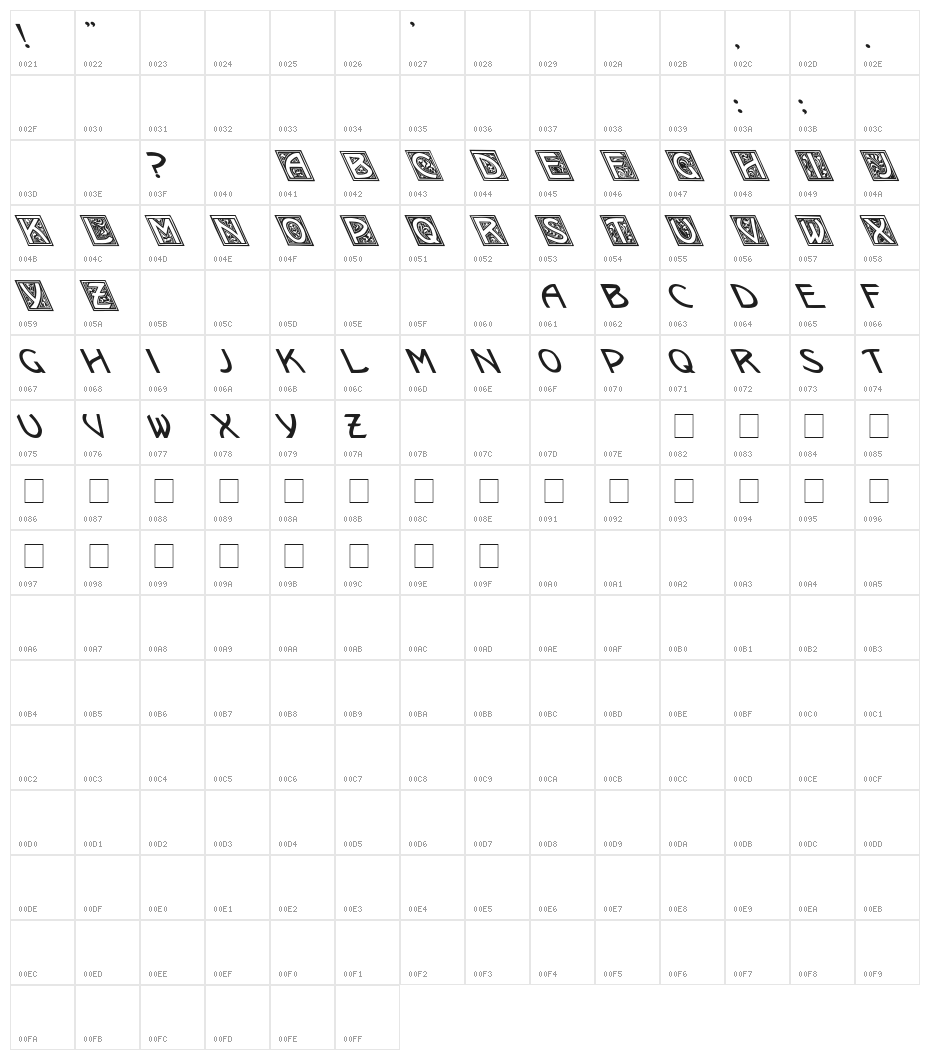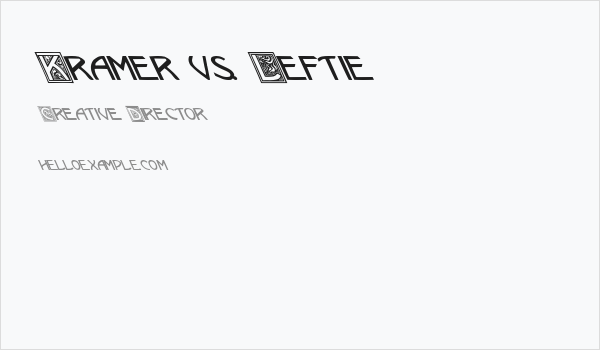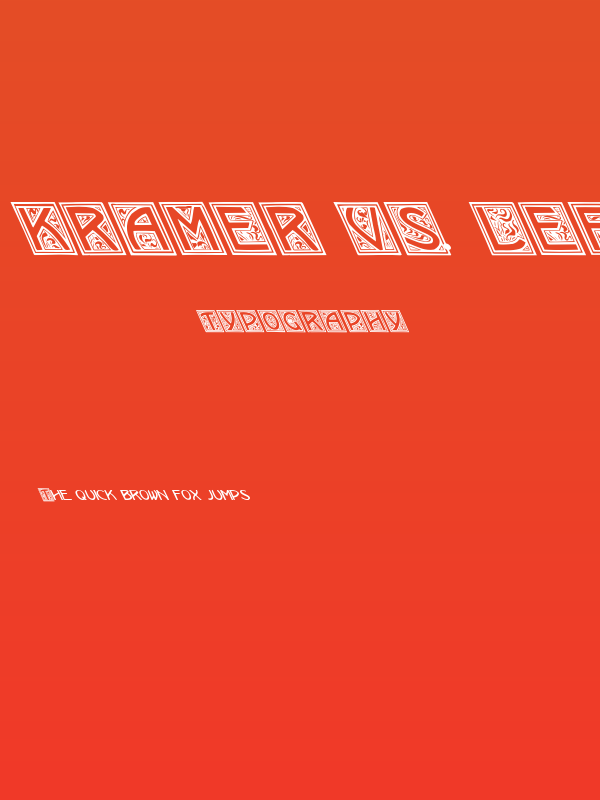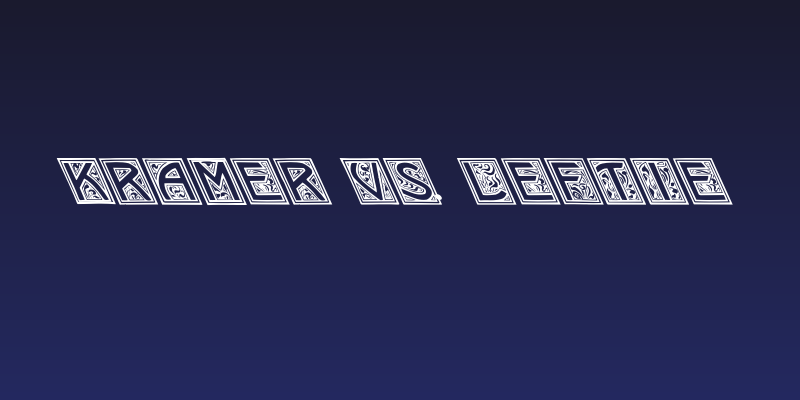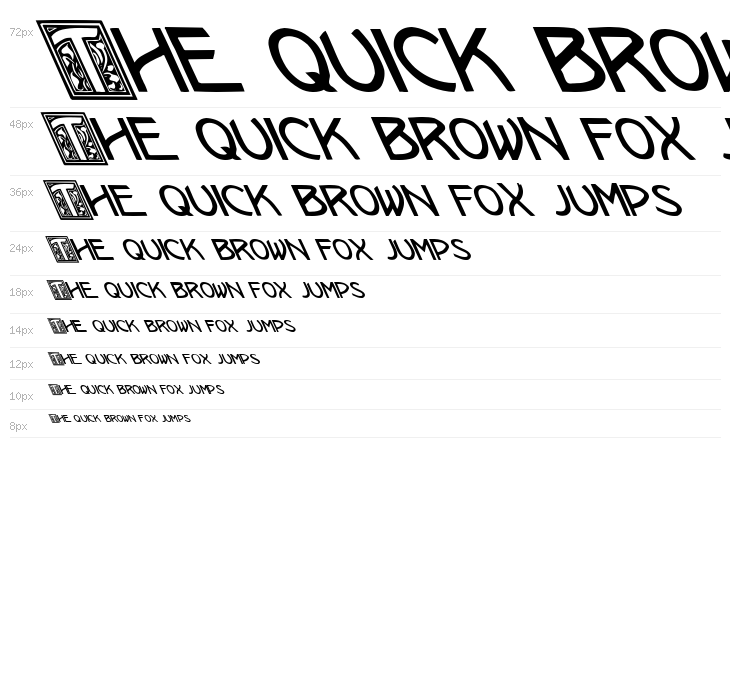
Kramer vs. Leftie Font
Kramer vs. Leftie Description
This font features a bold and dynamic design with two distinct styles. The first style is decorative, with intricate patterns filling each letter, creating a sense of movement and complexity. The second style is more straightforward, with bold, angular shapes that convey a sense of energy and modernity. The uppercase letters are prominent, and the special characters are minimal yet impactful. This font is ideal for projects that require a strong visual presence and a touch of creativity.
| Proposed Projects | Ideal for posters, album covers, branding, and creative design projects. |